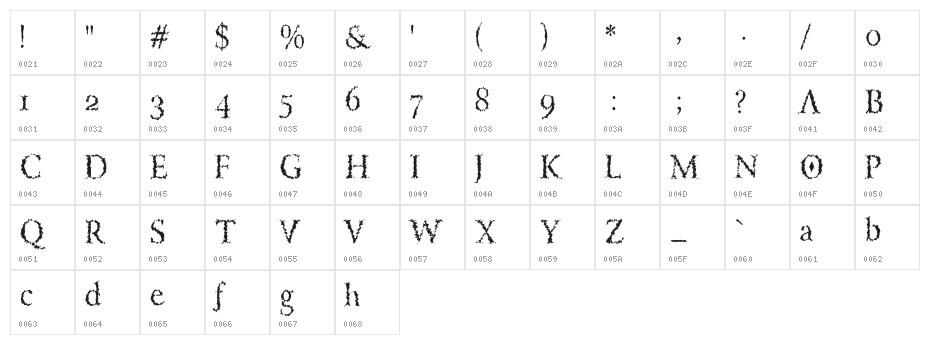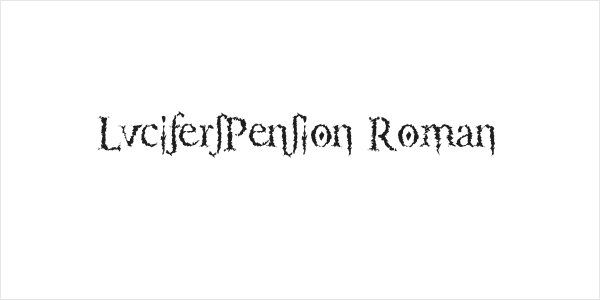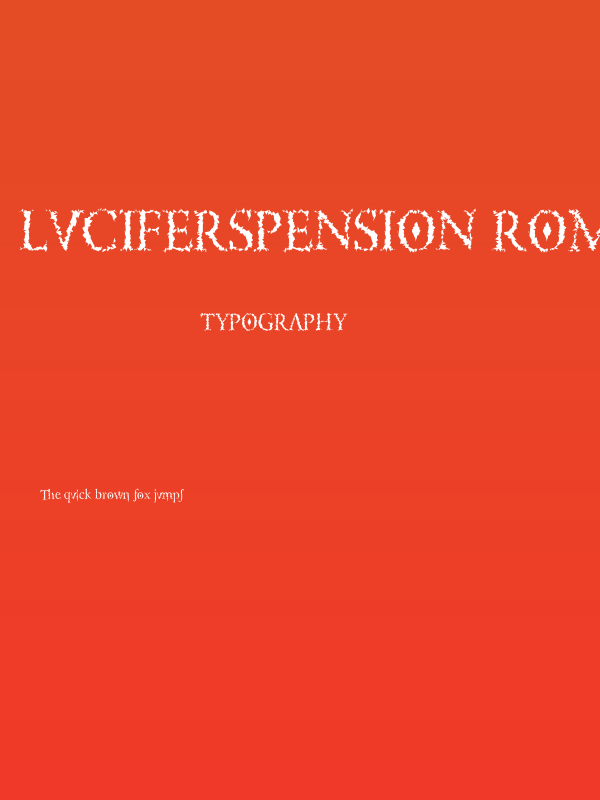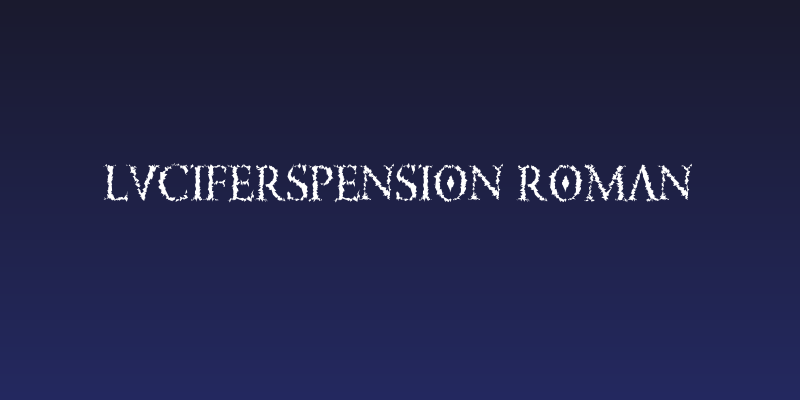
LucifersPension Roman Font
LucifersPension Roman Description
This font features a highly decorative and edgy design, characterized by sharp, jagged edges that give it a thorny, almost menacing appearance. The letters are crafted with an irregular, spiky texture that suggests a sense of chaos and intensity. Despite its wild aesthetic, the characters maintain a consistent form, ensuring readability. The uppercase and lowercase letters share this unique style, with numerals and special characters also following the same design principles. This font is ideal for projects that require a dramatic and bold statement, capturing attention with its distinctive and unconventional look.
| Proposed Projects | Ideal for horror-themed posters, album covers, Halloween invitations, or any project needing a dramatic and edgy typeface. |